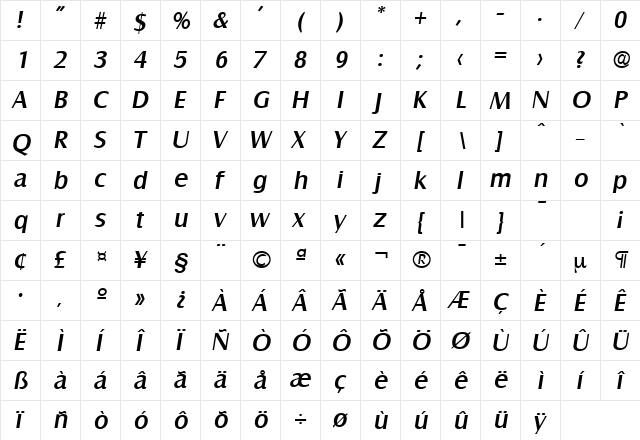
Salzburg-Serial-Medium RegularItalic
Design Context for Salzburg-Serial-Medium Typeface
Salzburg-Serial-Medium is a composed and adaptable typeface that performs quietly and consistently across a wide range of design contexts. Its italic angle brings a sense of urgency and motion to the letterforms.
Pro Tip: Try Salzburg-Serial-Medium for annotation and caption copy alongside an upright companion — the contrast in angle creates a dynamic but ordered typographic system.